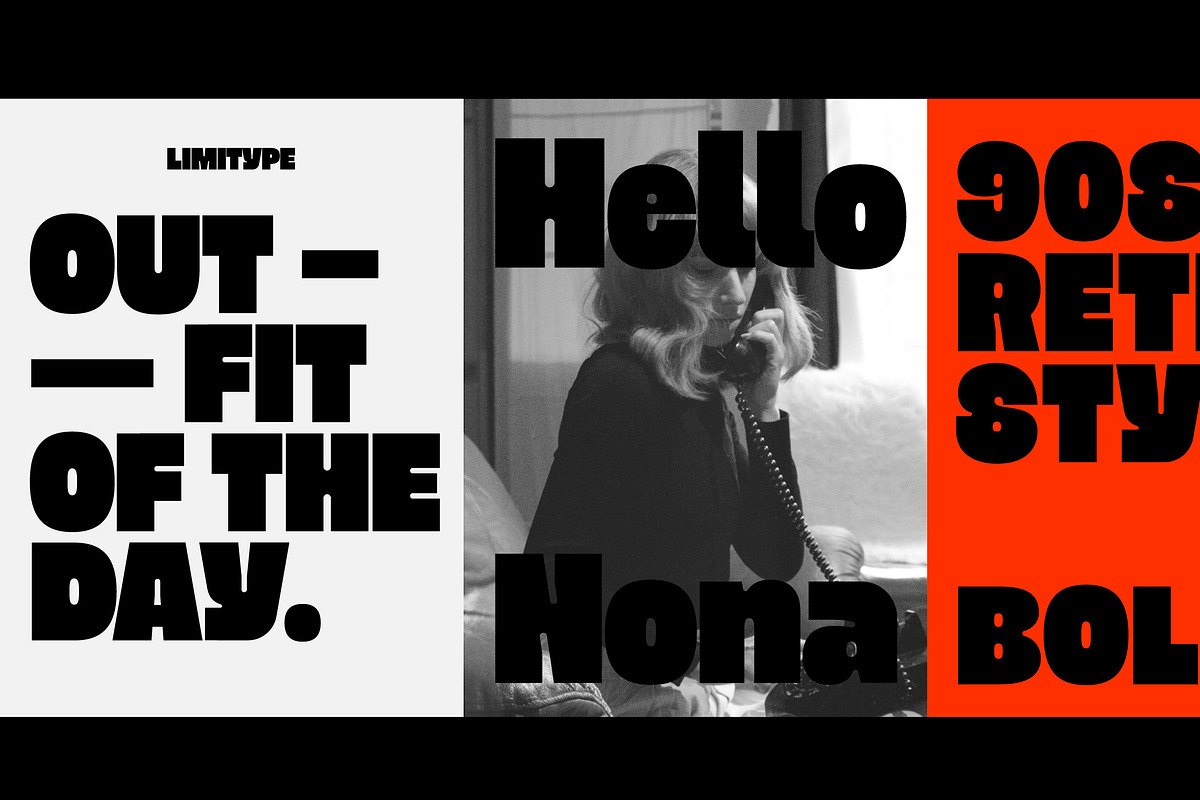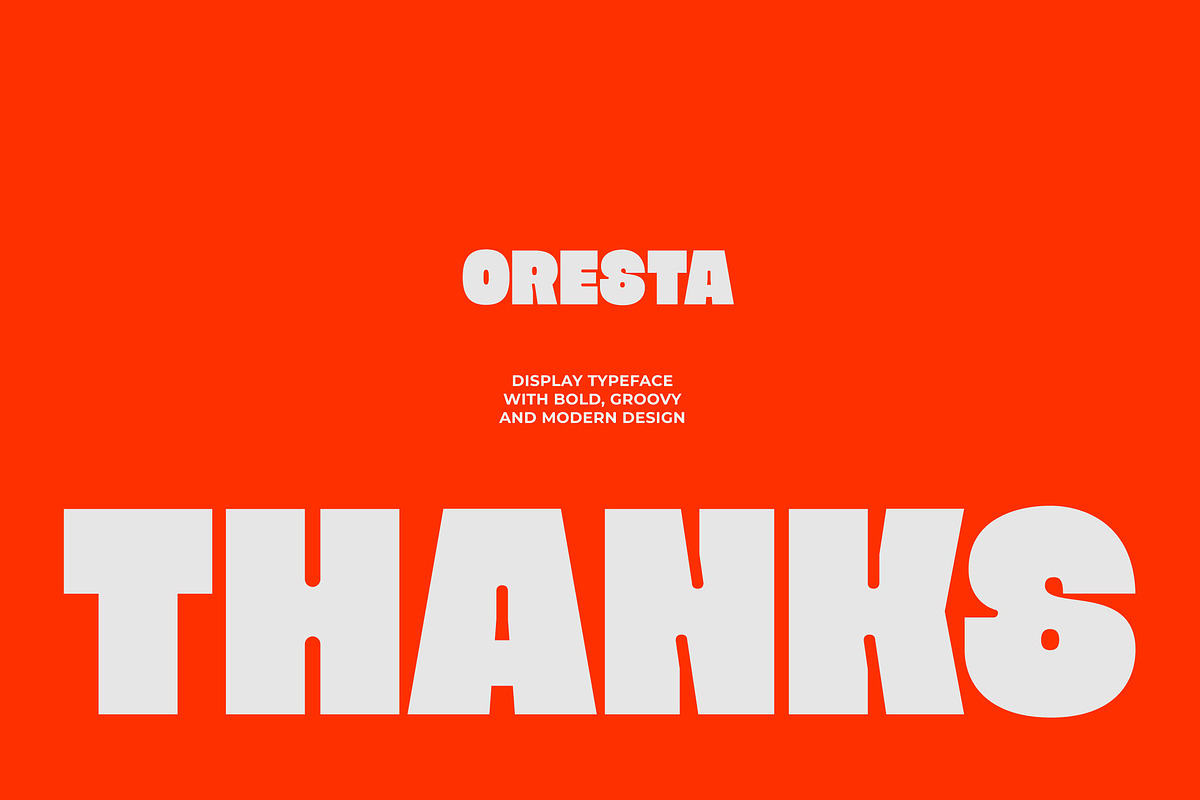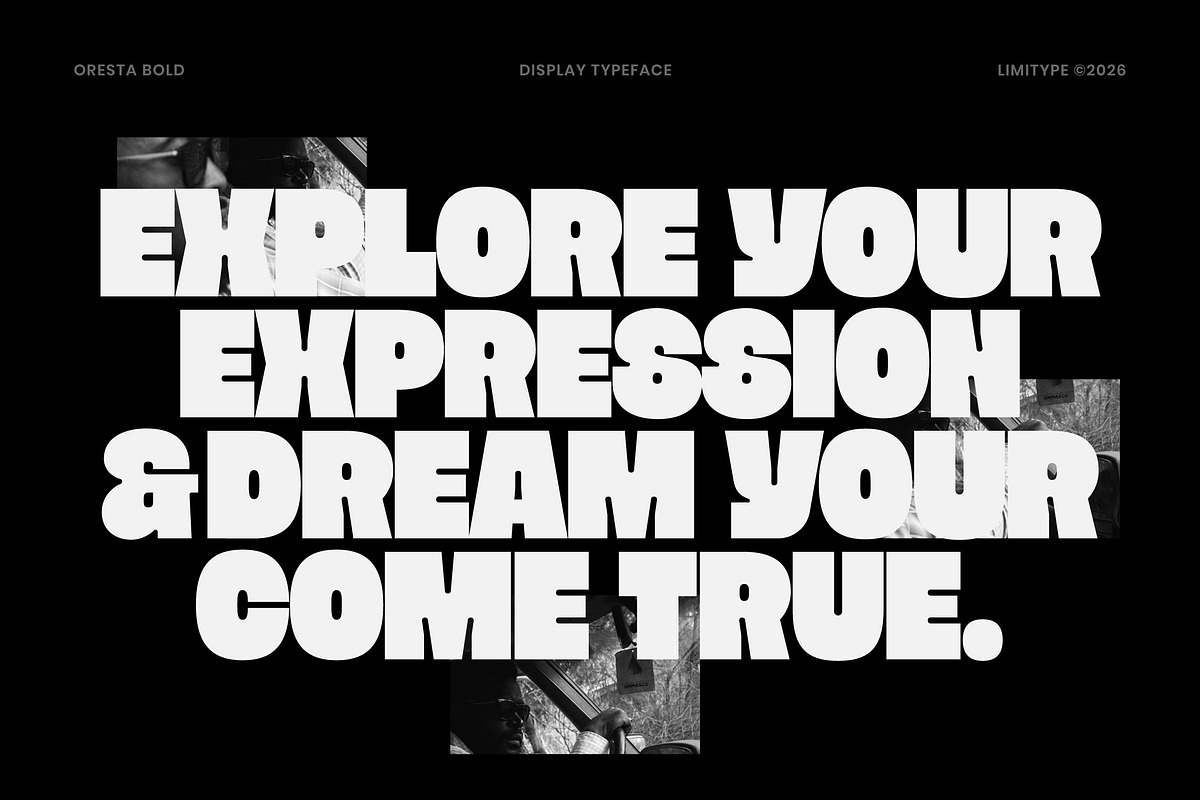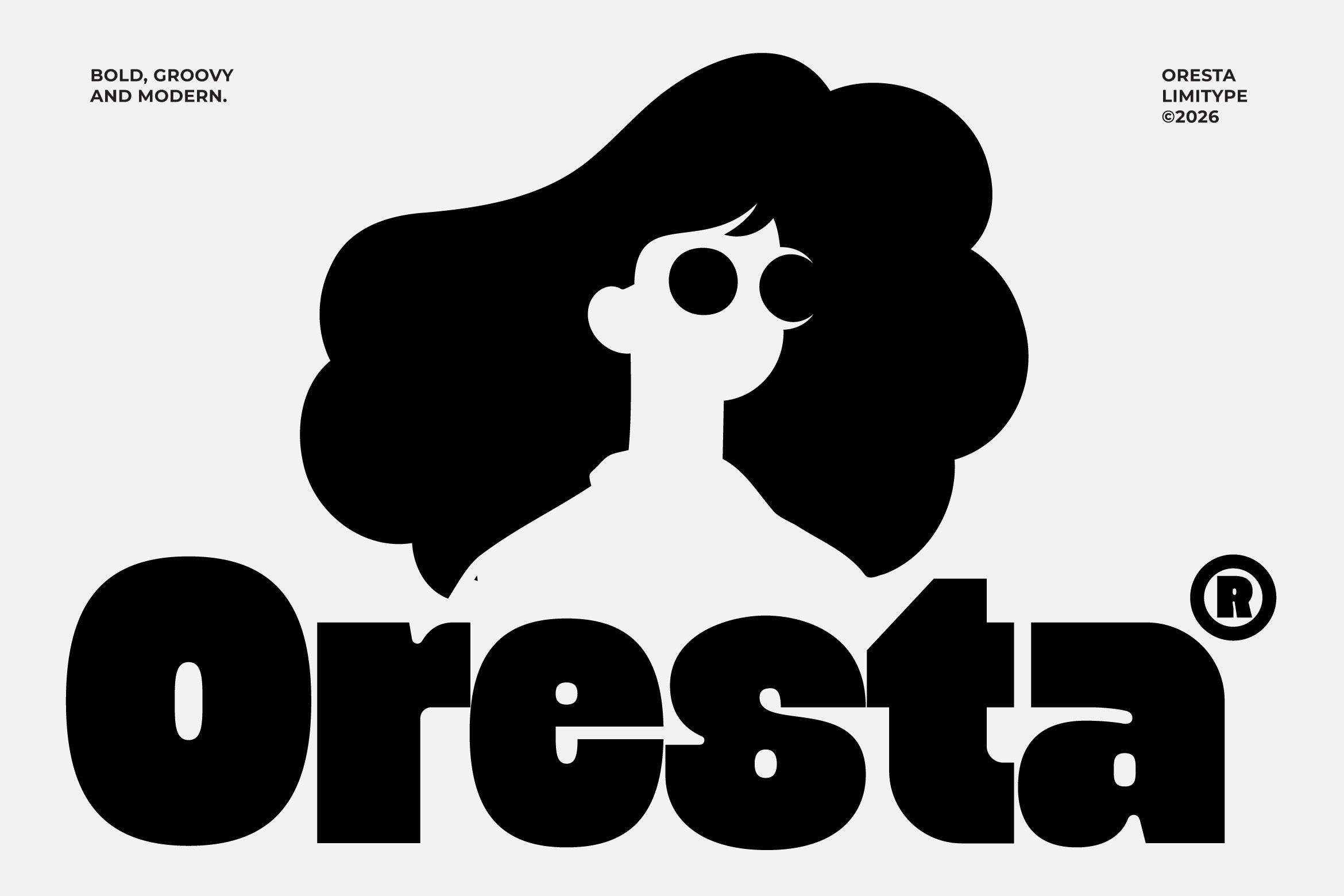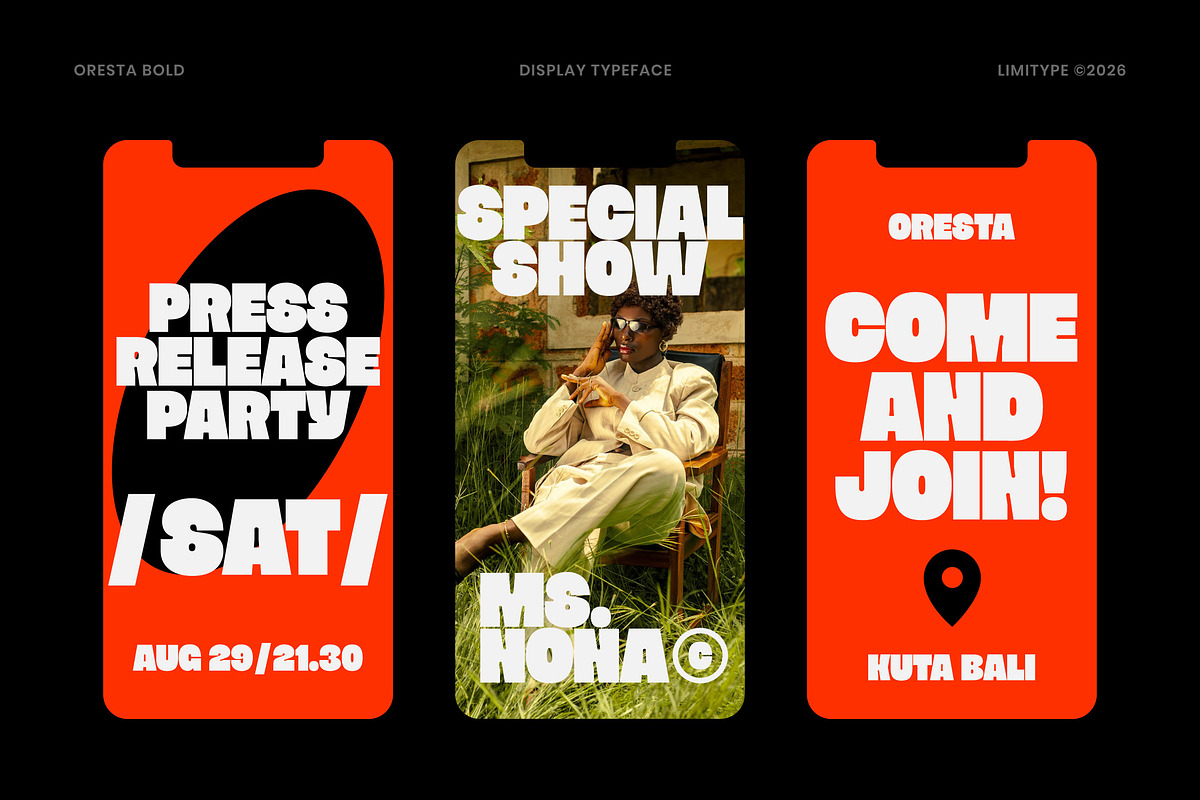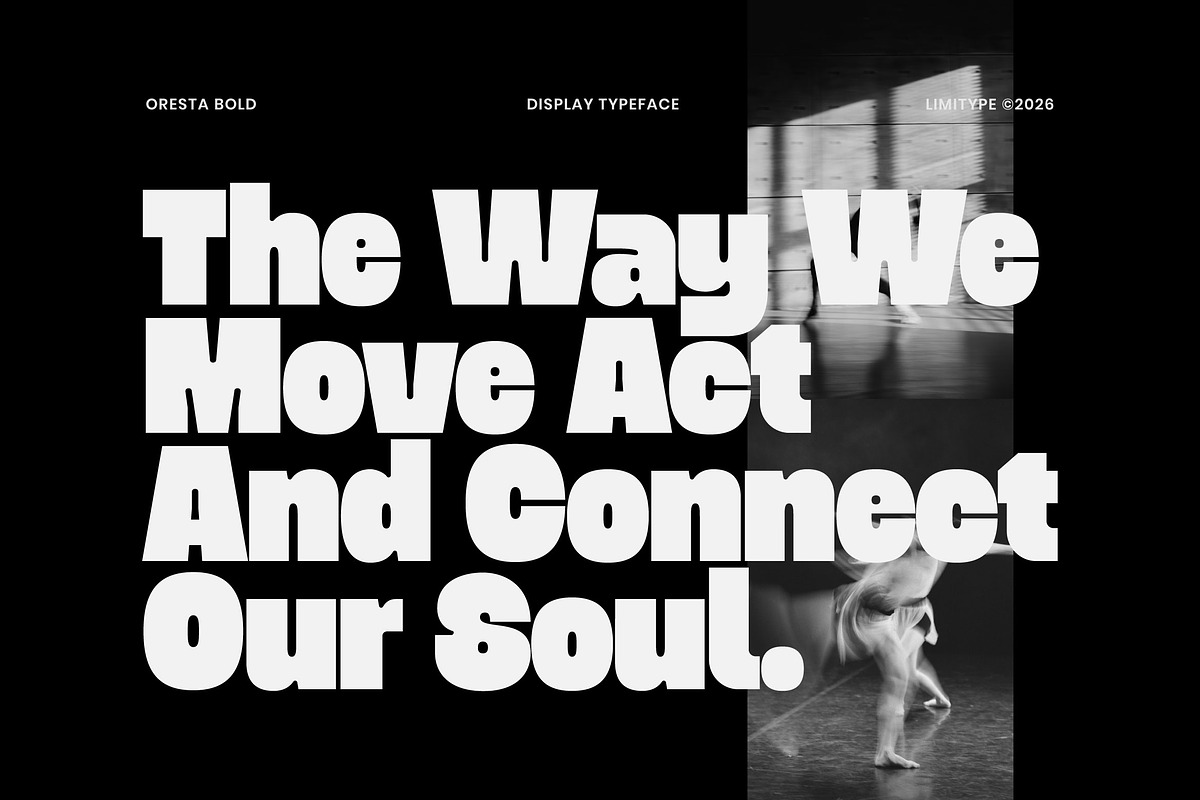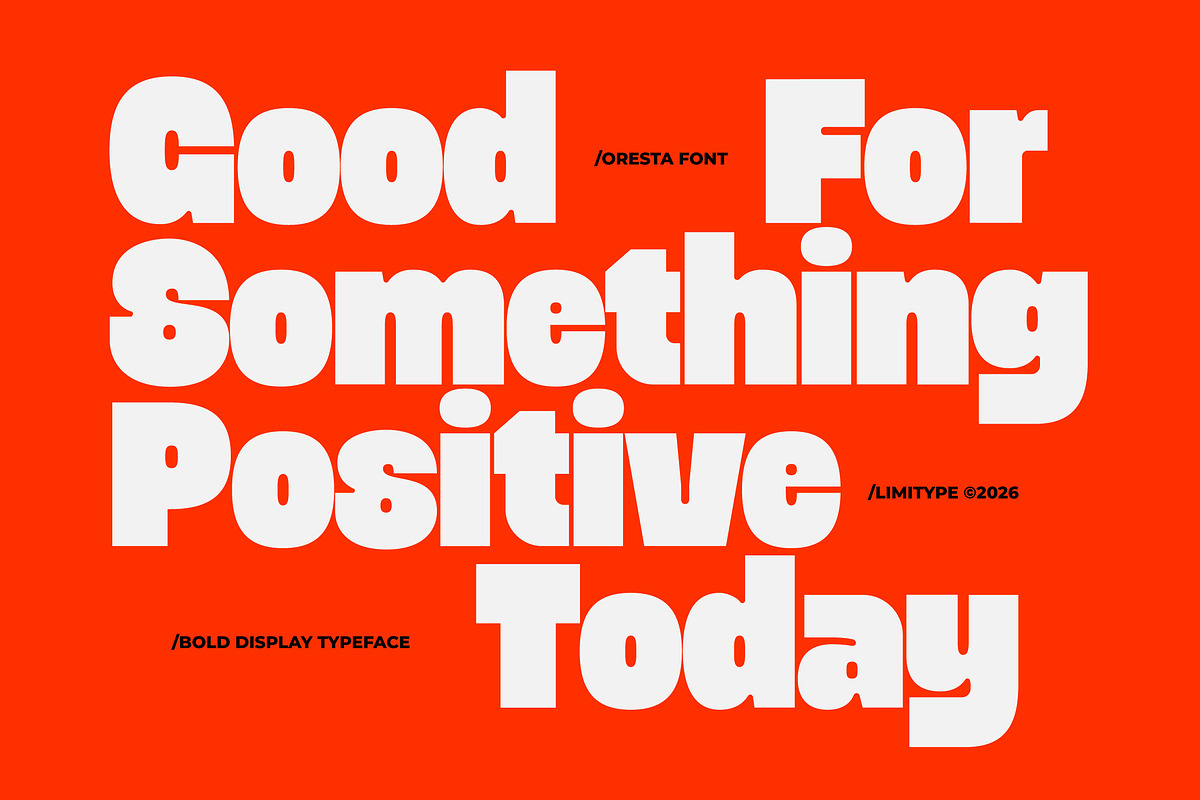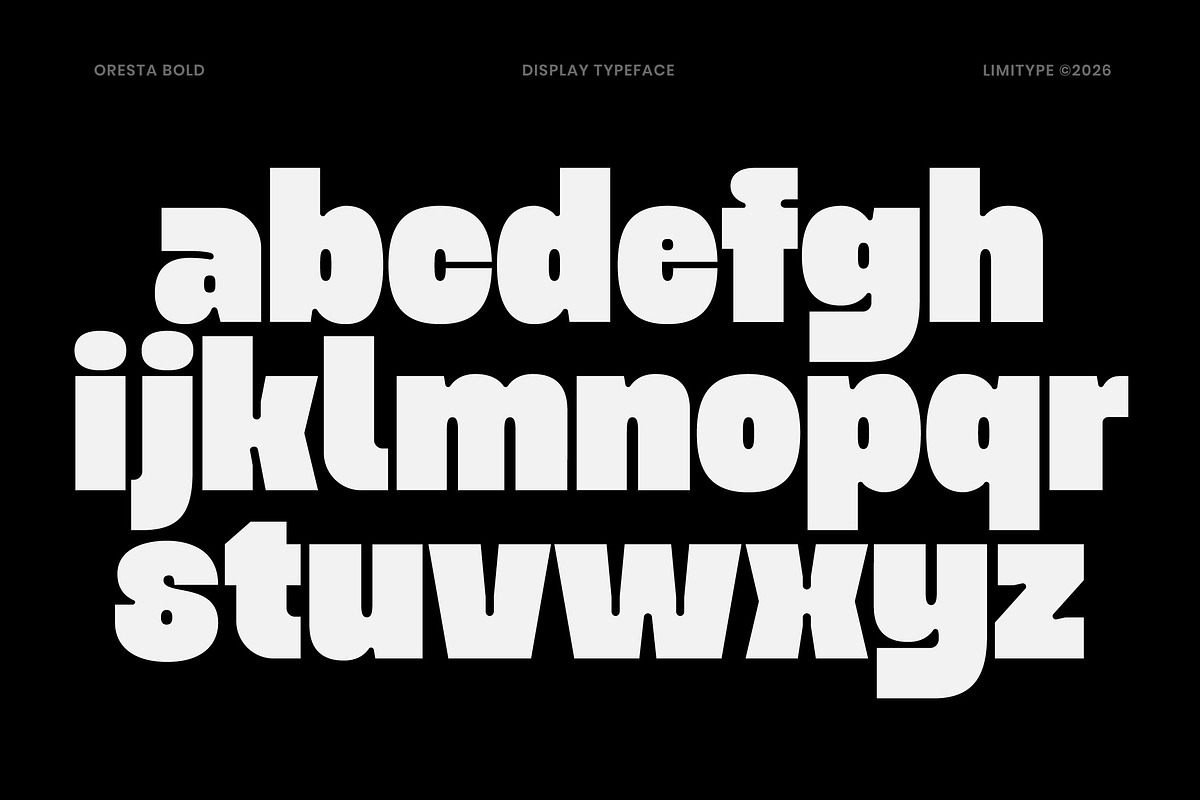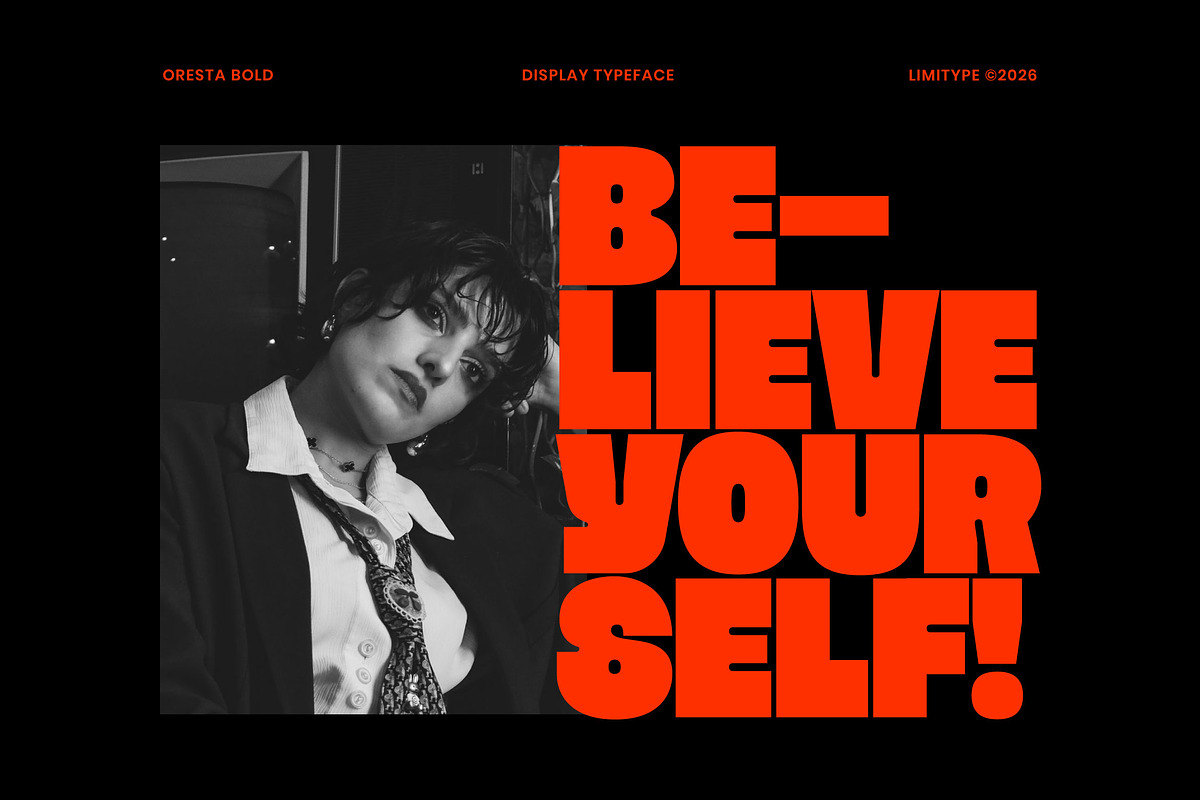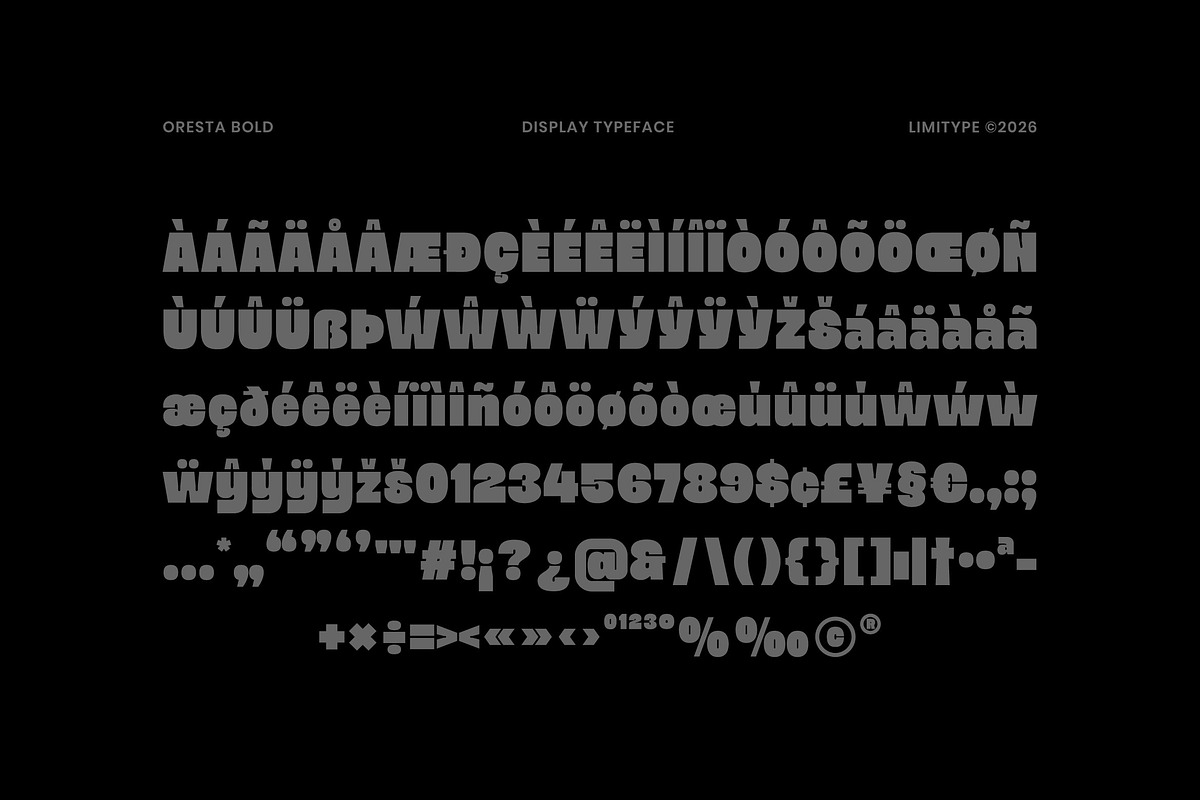
Oresta - Bold Display Font
Oresta is a bold groovy display font featuring thick and modern letterforms, compact proportions, and distinctive cut in details. Its heavy shapes, characteristic curves, and unique internal cuts create a strong retro personality while maintaining a modern and eye catching appearance with a striking visual impact. Designed to command attention, Oresta is perfect for bold headlines, posters, logos, branding, packaging, editorial designs, and expressive visual identities.